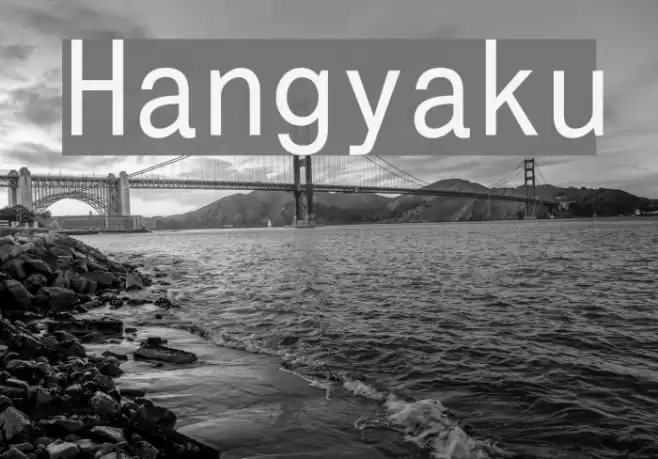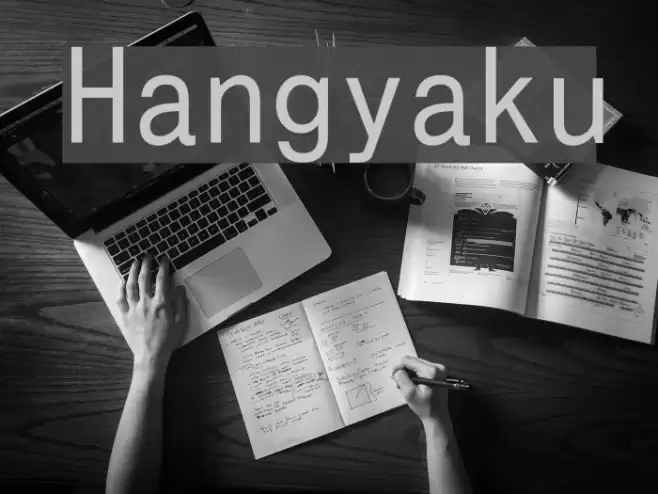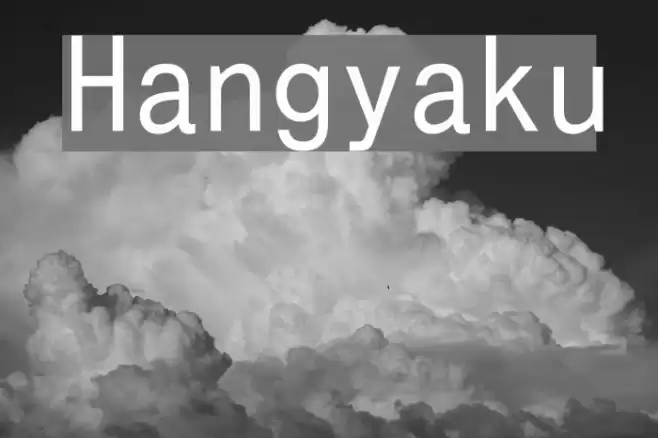
Hangyaku Font
Hangyaku Description
This font exhibits a clean and modern sans-serif style, characterized by its uniform stroke width and geometric shapes. The uppercase letters are bold and assertive, while the lowercase letters maintain a consistent and harmonious appearance. The numerals are well-proportioned, ensuring readability and balance. Special characters are designed with clarity, making them suitable for various applications. The overall design is minimalistic, emphasizing functionality and simplicity, which makes it versatile for both digital and print media.
- Proposed Projects: Ideal for branding, web design, advertising, and editorial projects where clarity and modern aesthetics are desired.
- Use Case: Headlines, Body text, Logos